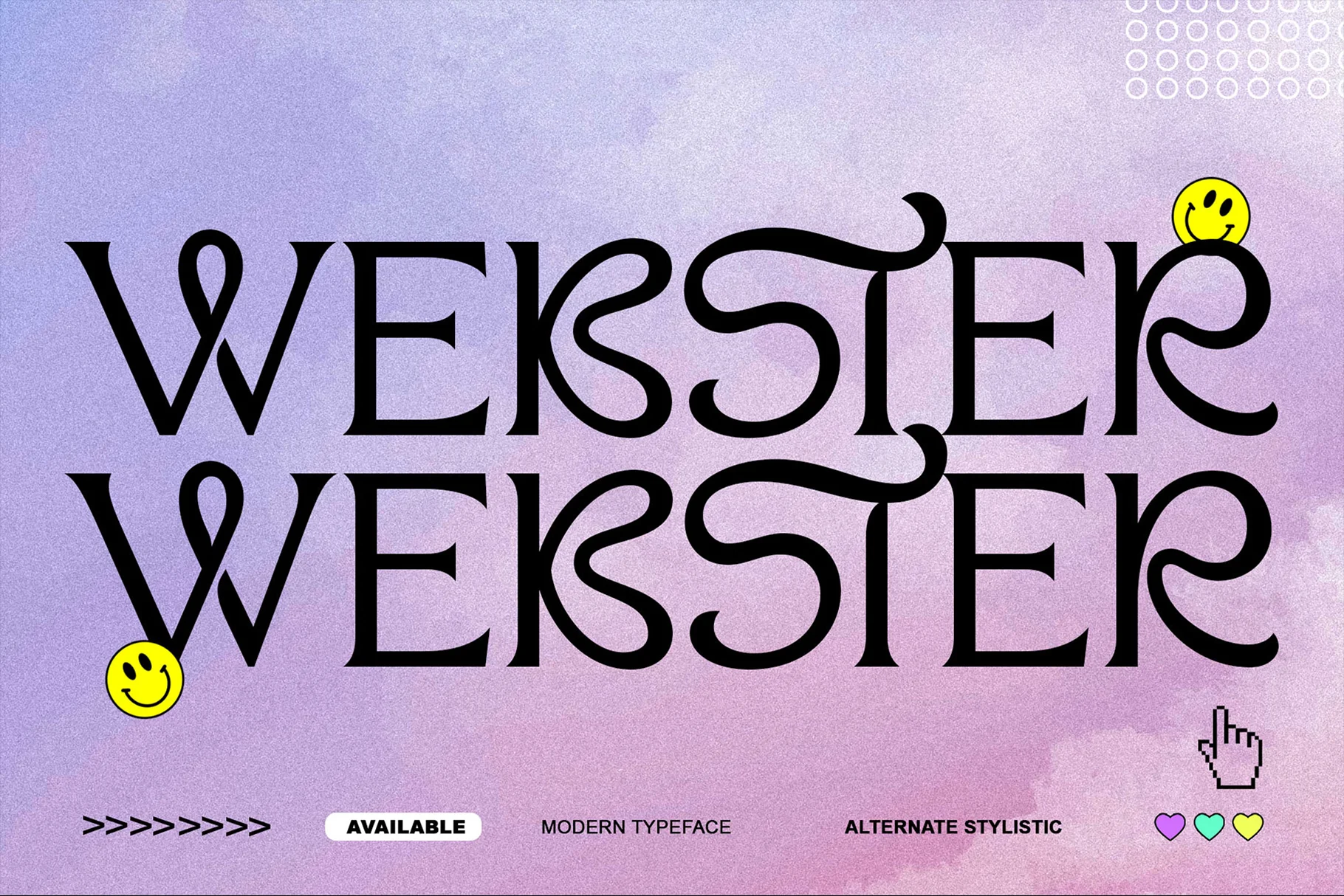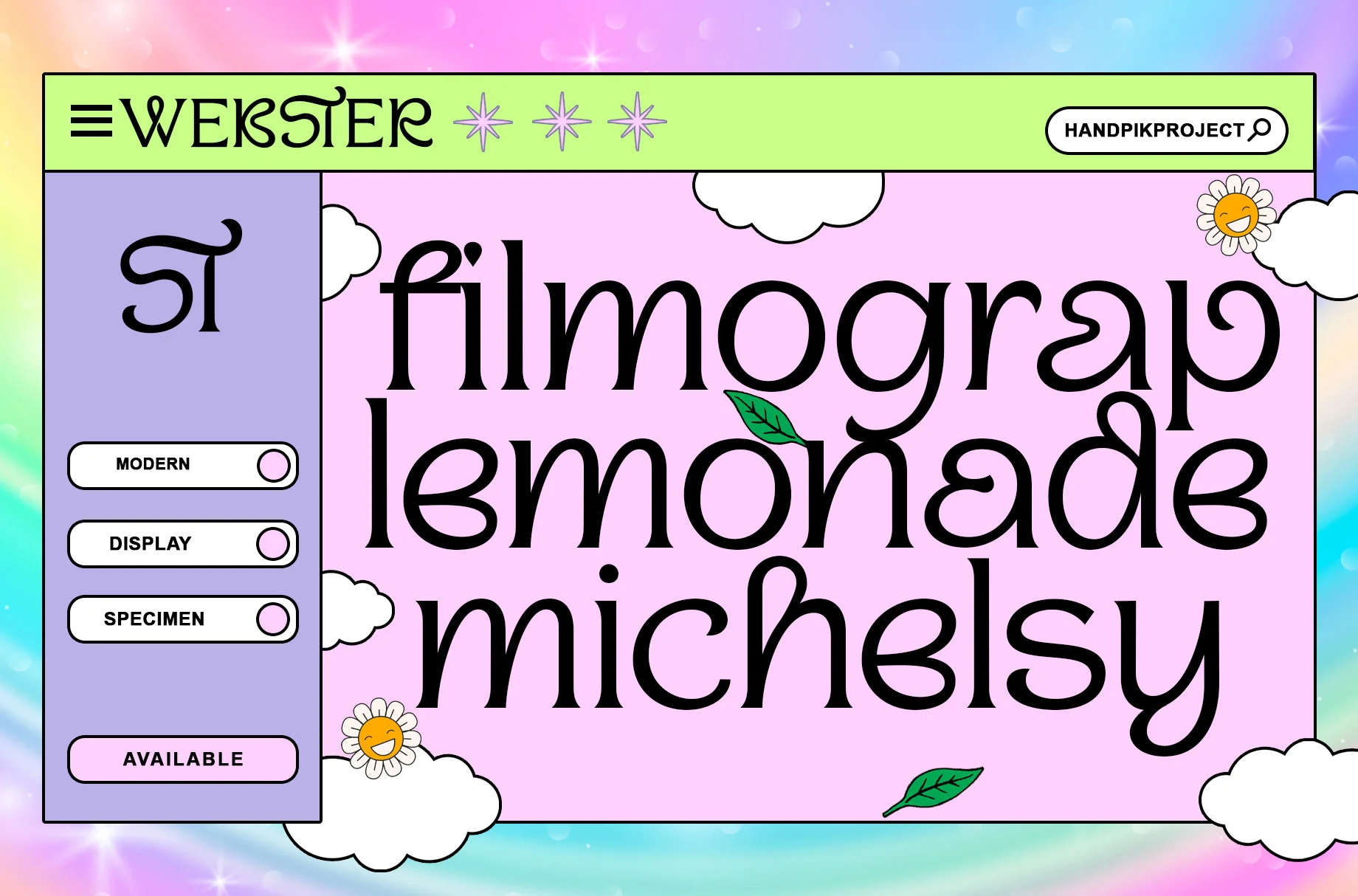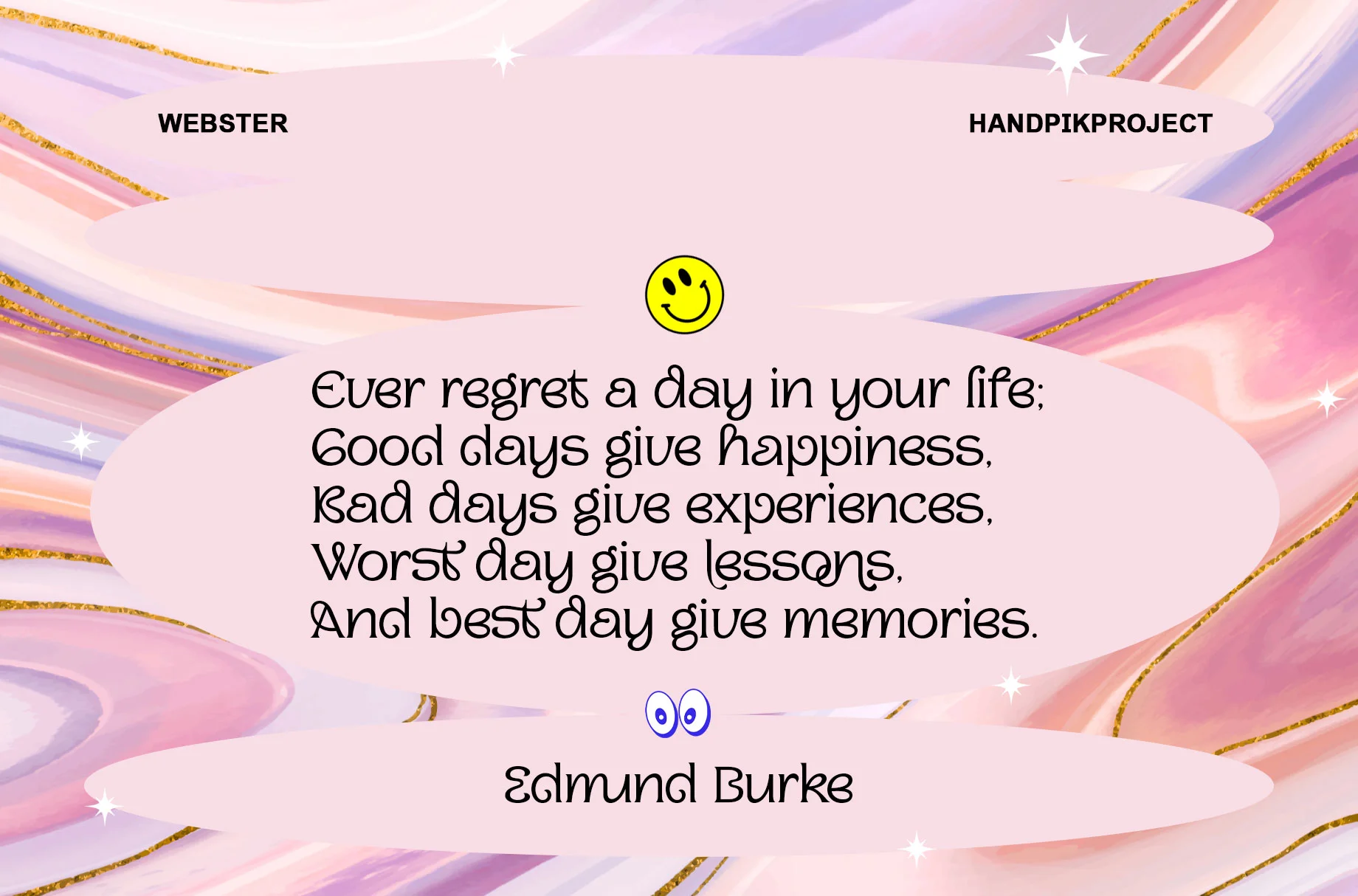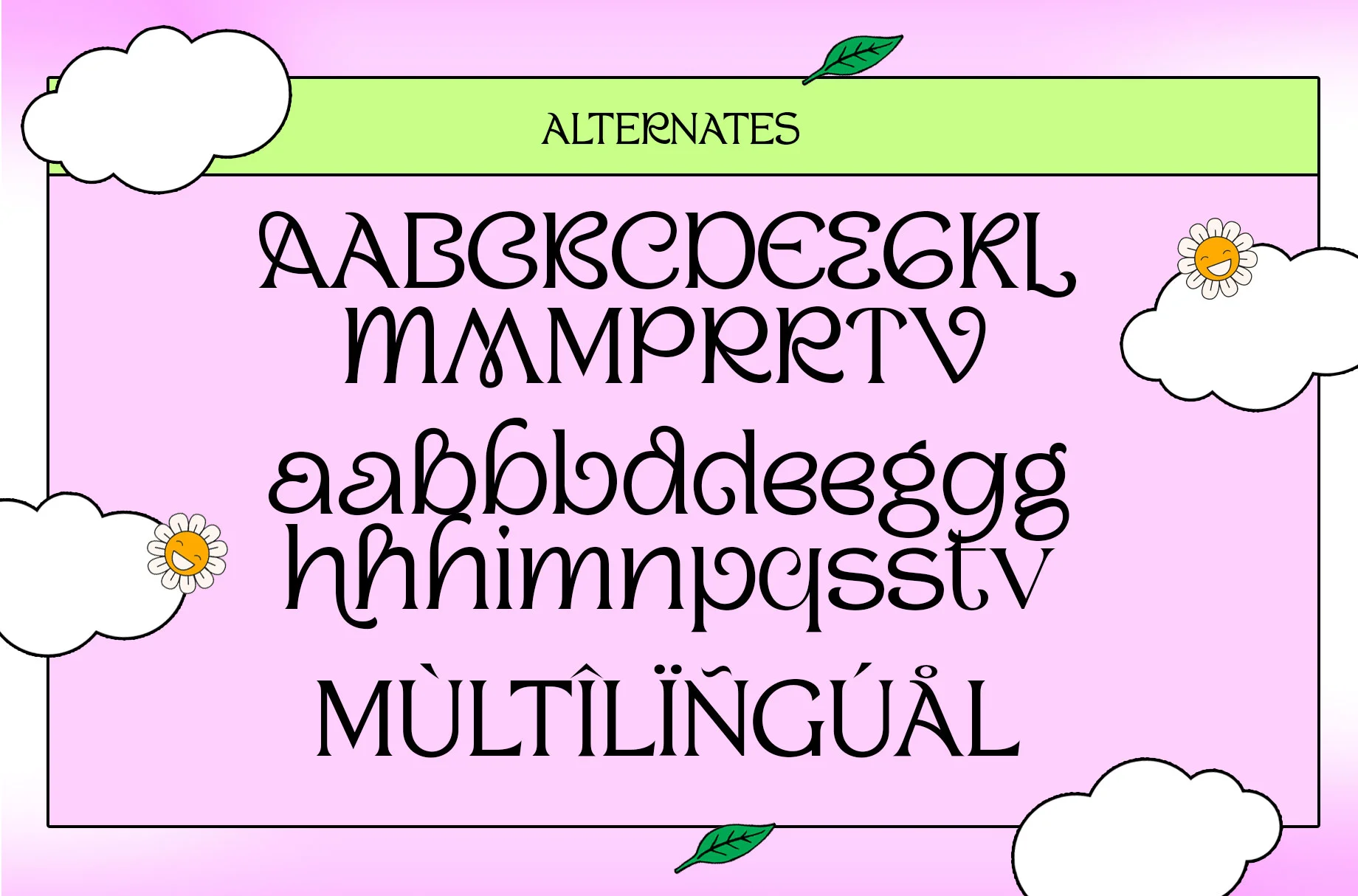
Webster
**Webster** is a special modern style font. Made with accurate accuracy. With specials characters and ligatures that make your work very special. It is perfect for branding design, logo, greeting cards, headline packaging. and other designs. Immediately use our fonts to make your work even more amazing.
**Webster** is also included full set of:
* uppercase and lowercase letters
* multilingual support full latin simple language
* numerals
* punctuation
* Ligatures